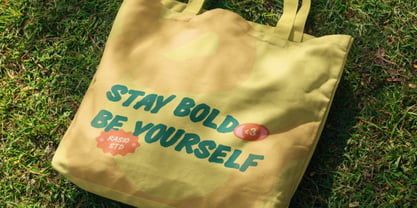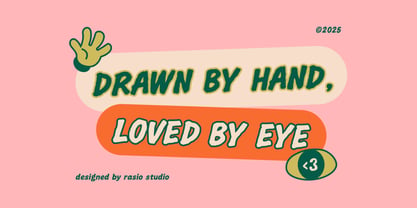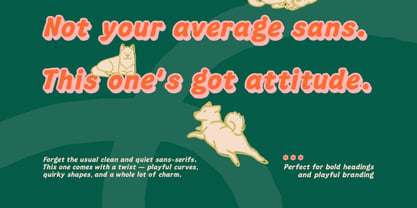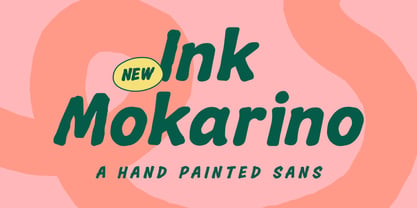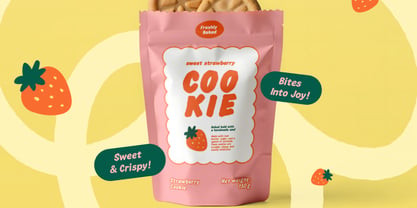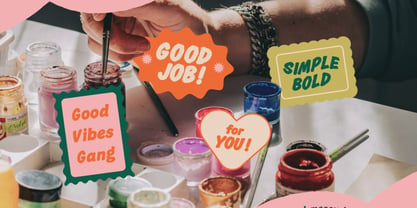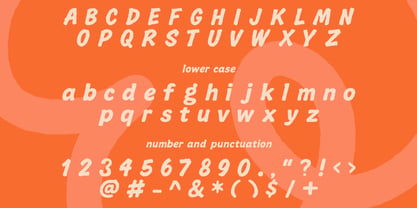
Ink Mokarino
Ink Mokarino is a bold hand-painted sans serif typeface featuring organic brush strokes, uneven edges, and lively ink texture that create an expressive handmade feel. The letterforms carry chunky proportions, soft curves, and natural imperfections for a warm, friendly, and energetic personality. Relevance and Use Cases is perfect for children branding, snack and food packaging, posters, stickers, merchandise, social media graphics, craft projects, playful logos, comic titles, and any design that needs a warm, friendly, and expressive hand-painted personality.